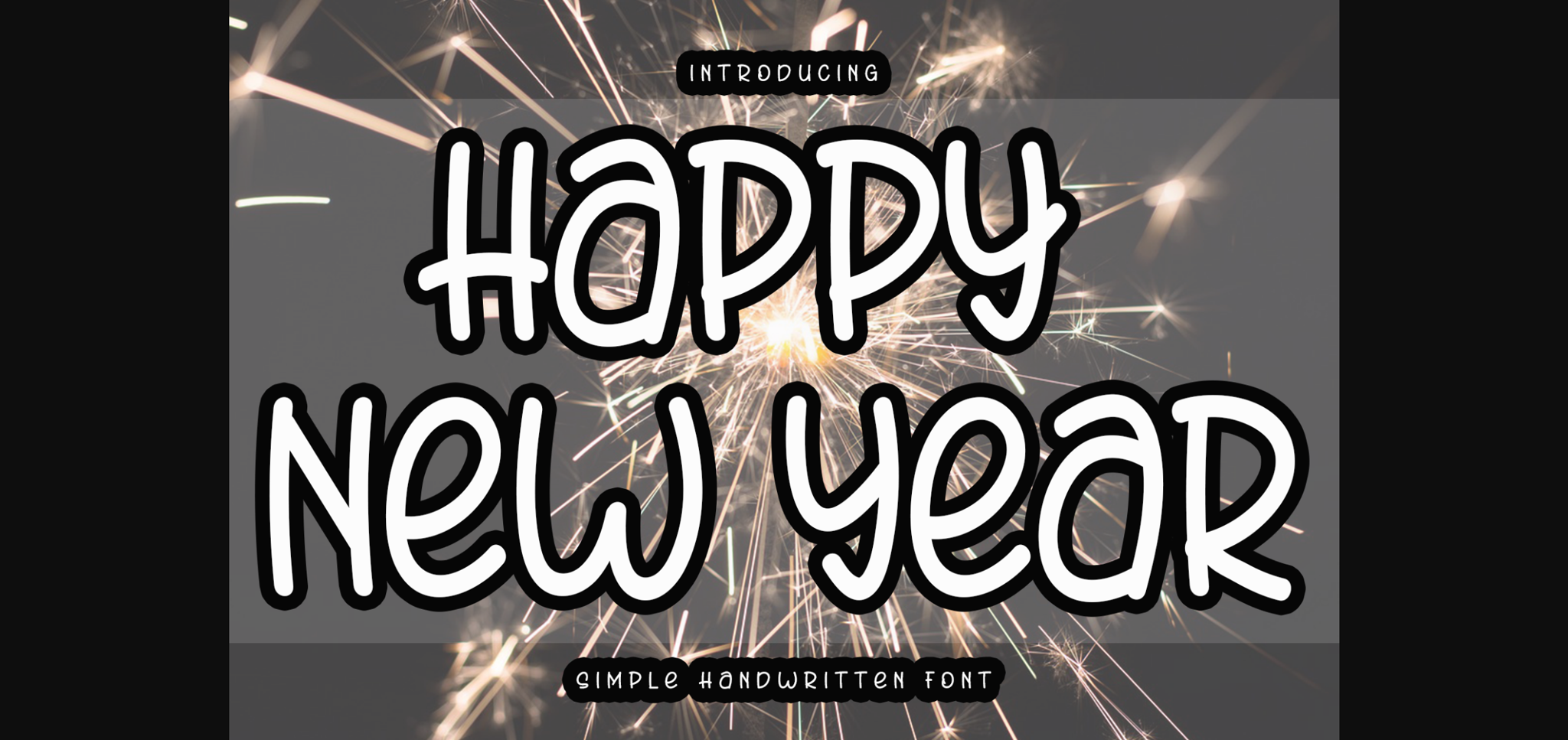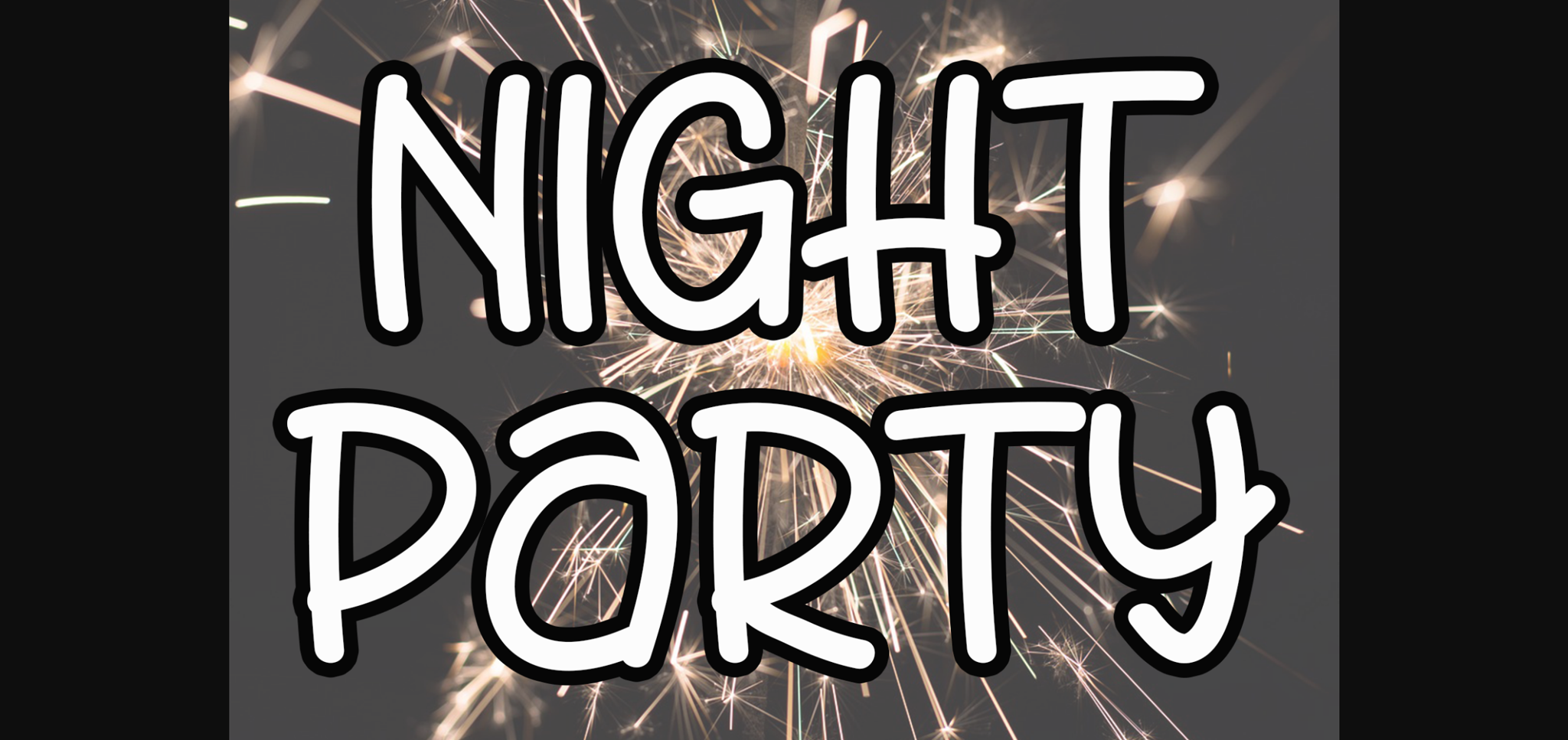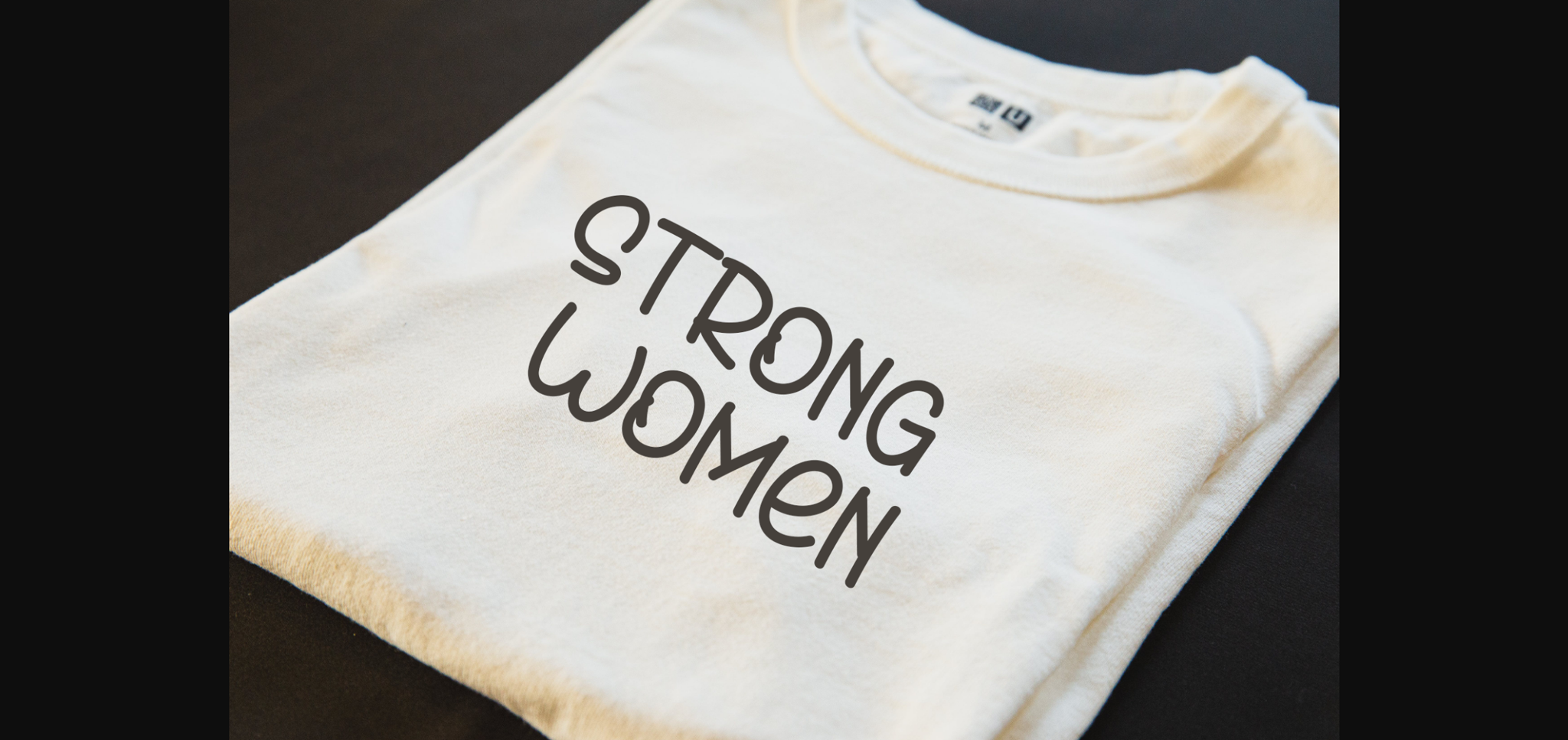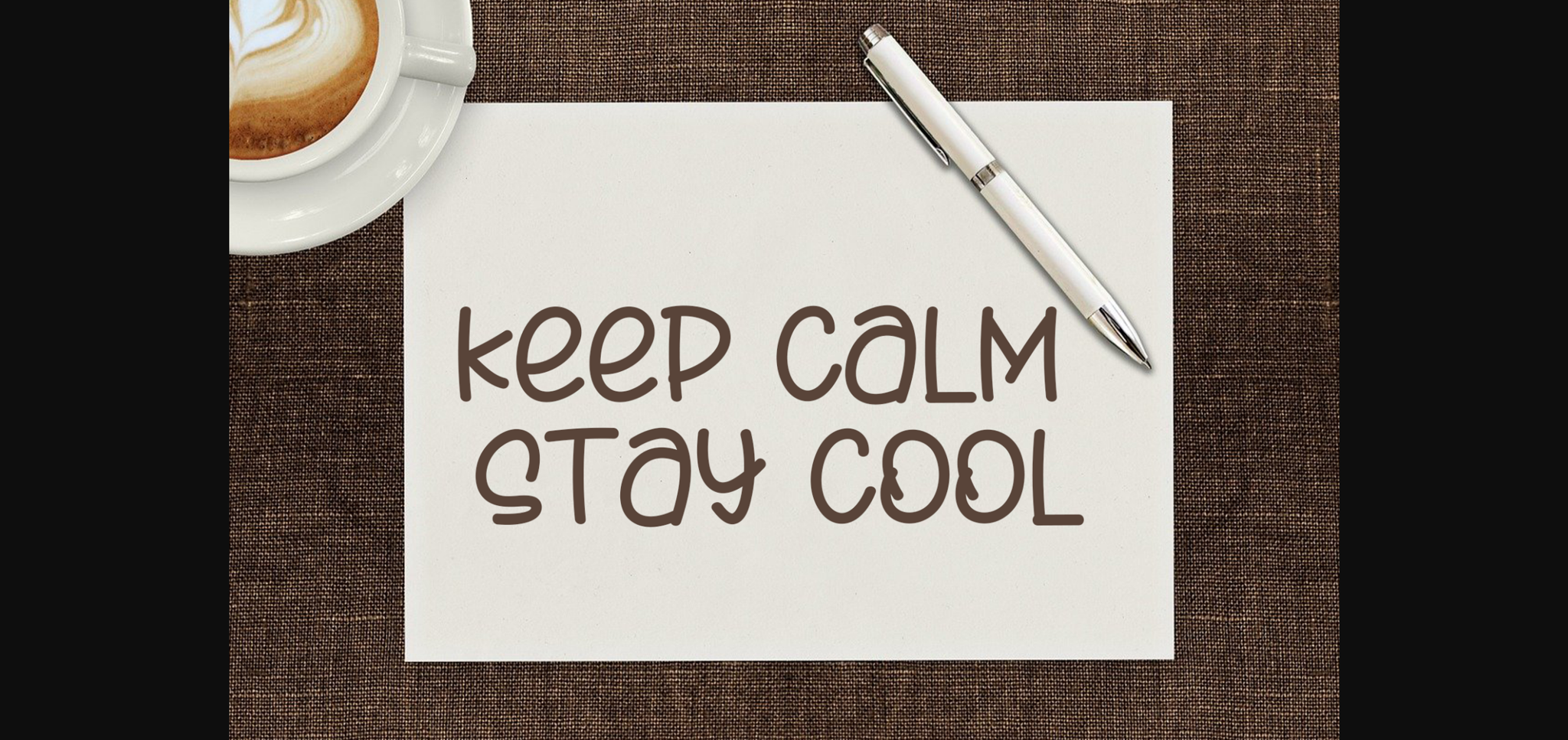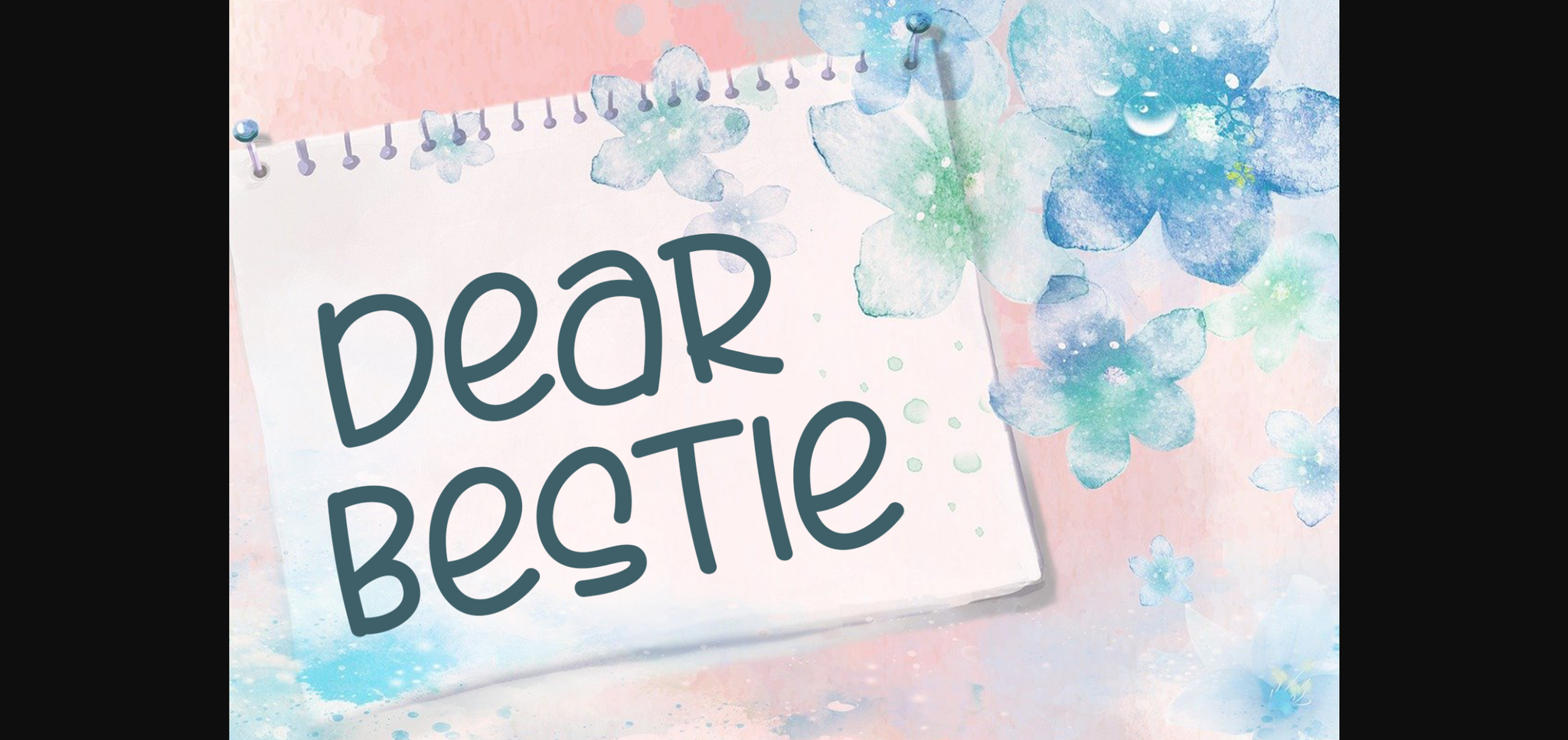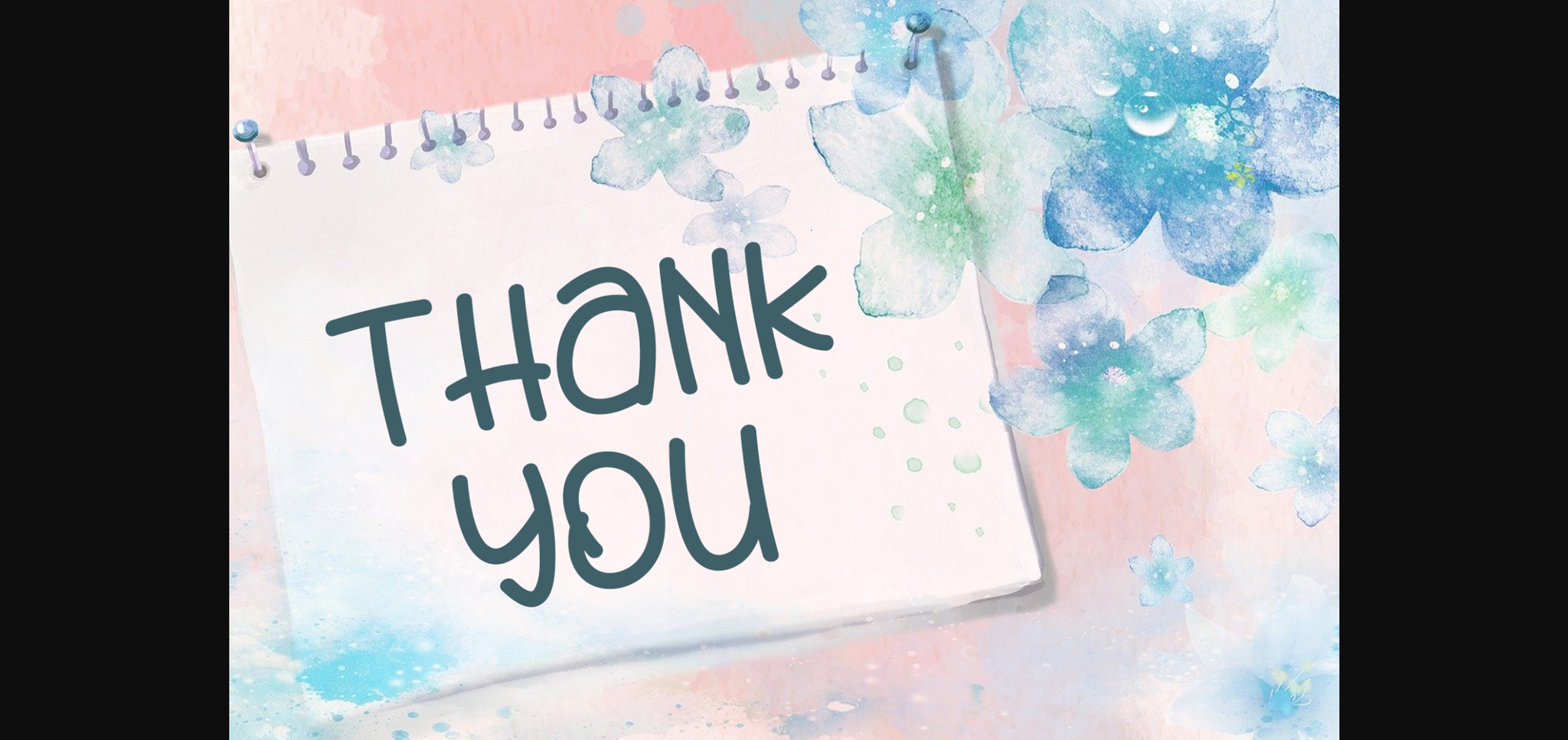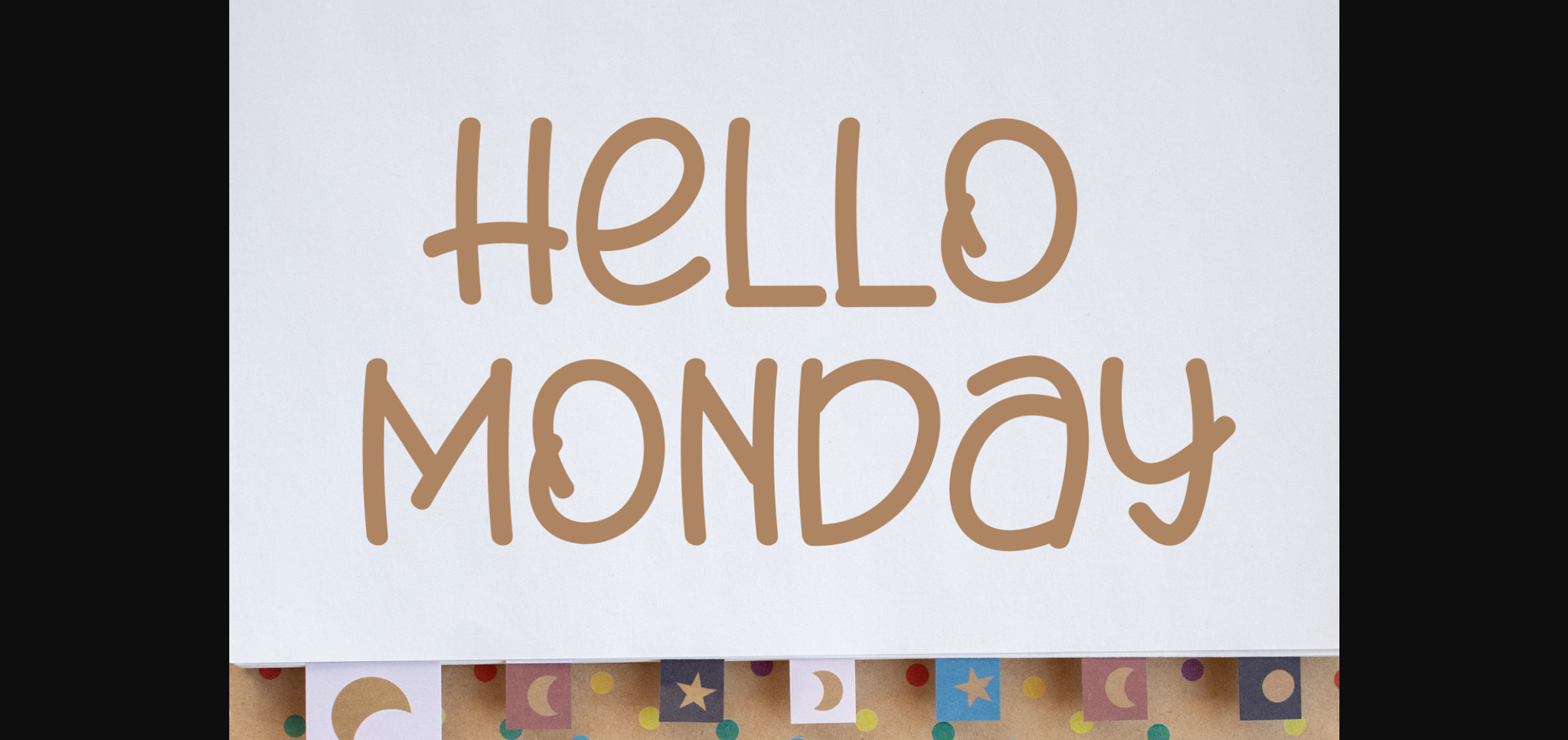
Happy New Year Font
About Happy New Year Font
Happy New Year is a cool and modern sans-serif font. Whether you’re using it for crafts, digital design, presentations, or creating greeting cards, this font has the potential to become your go-to font, whatever the occasion.